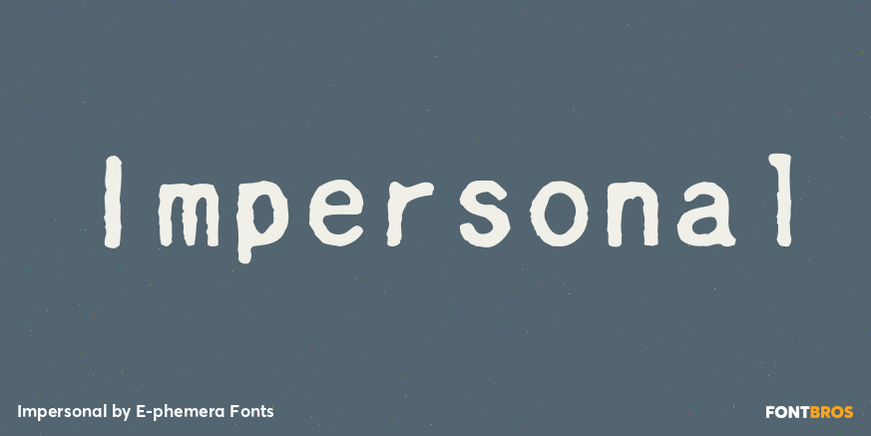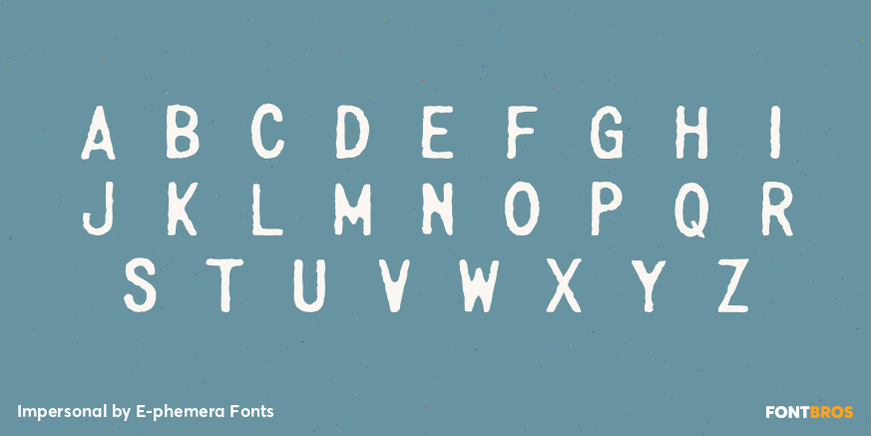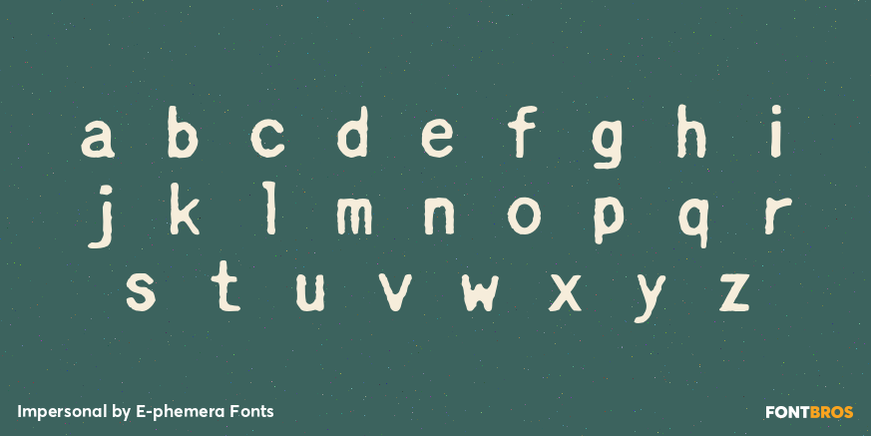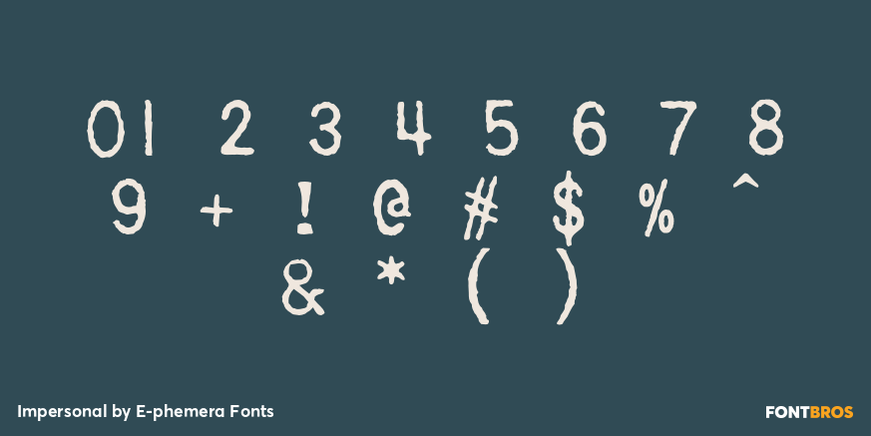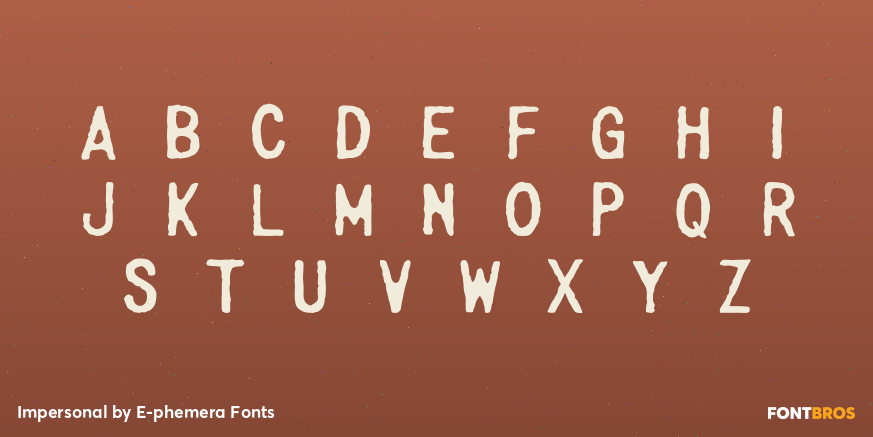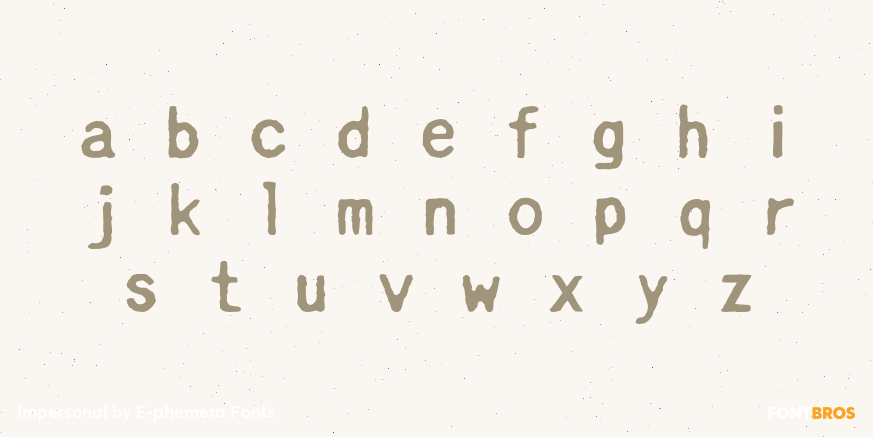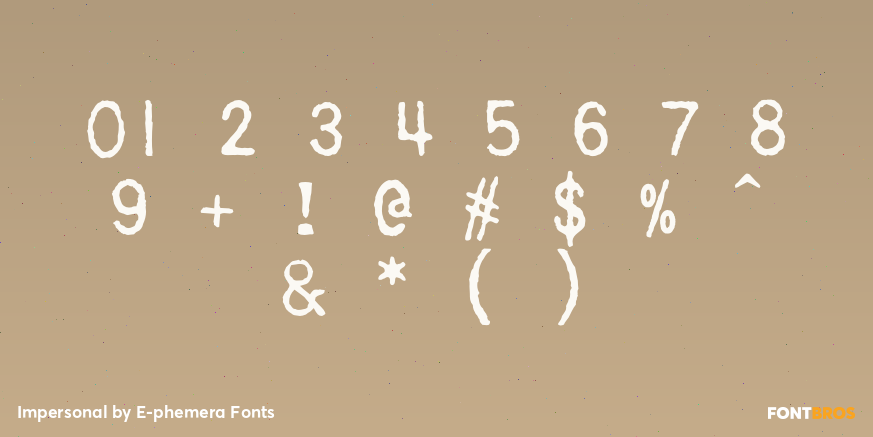
Impersonal
Font Family by E-phemera Fonts
This monospaced typewriter font is a detailed replica of letters appearing in La Plume, a 1950s personal ads magazine. The magazine billed itself as "The correspondence medium devoted to the connoisseur of the 'unusual'."